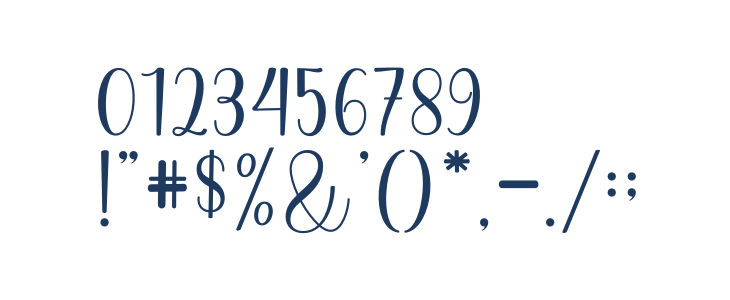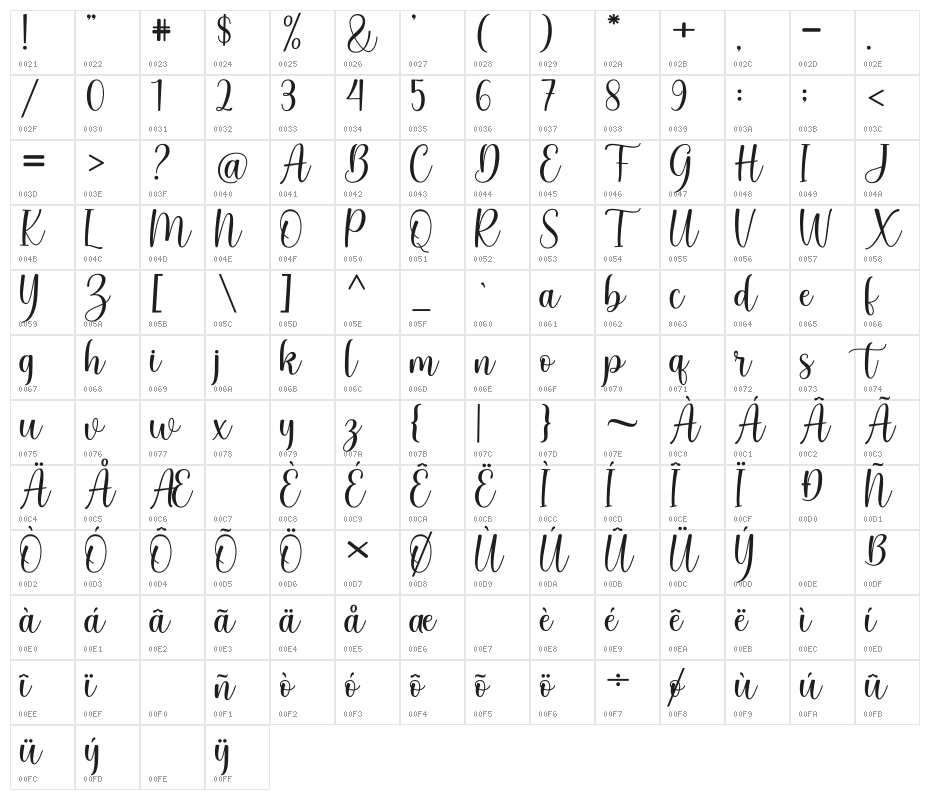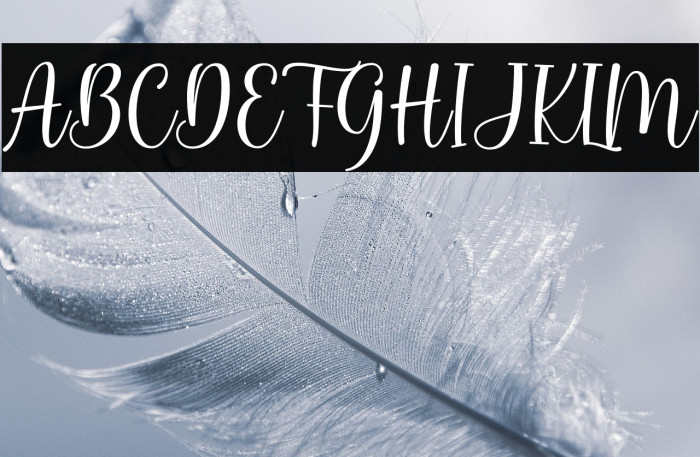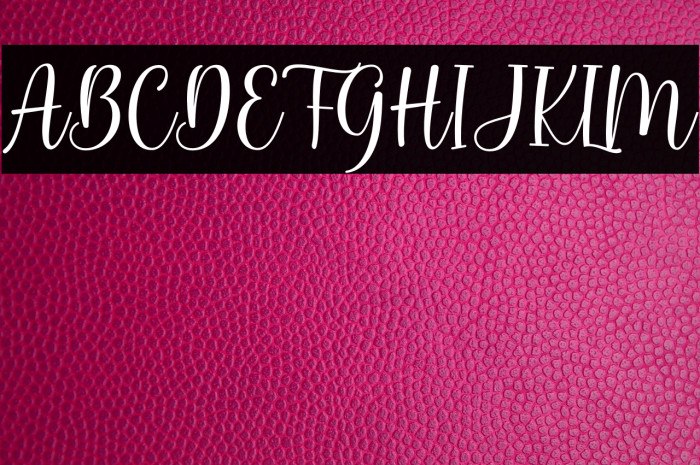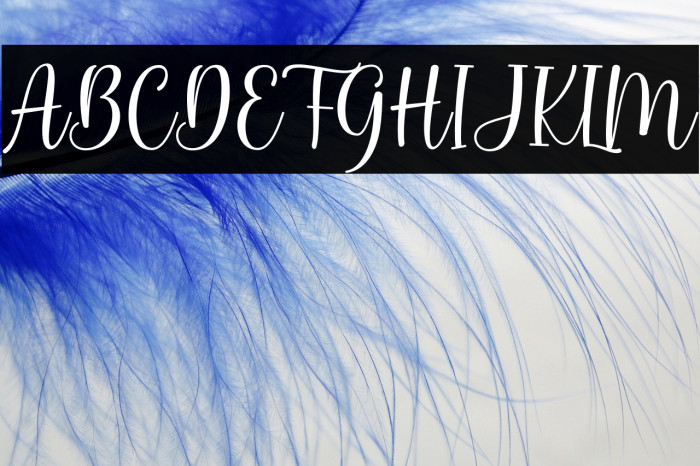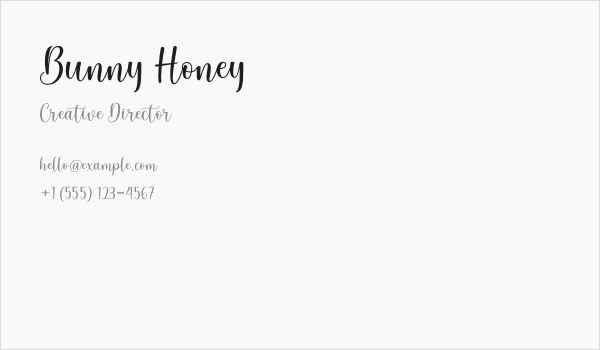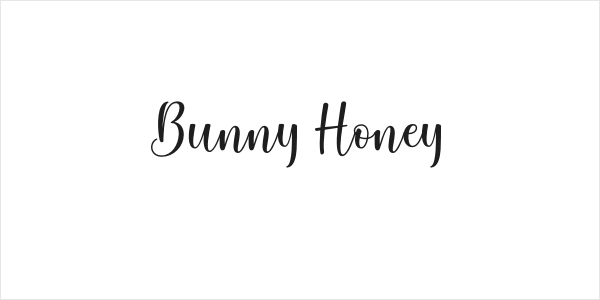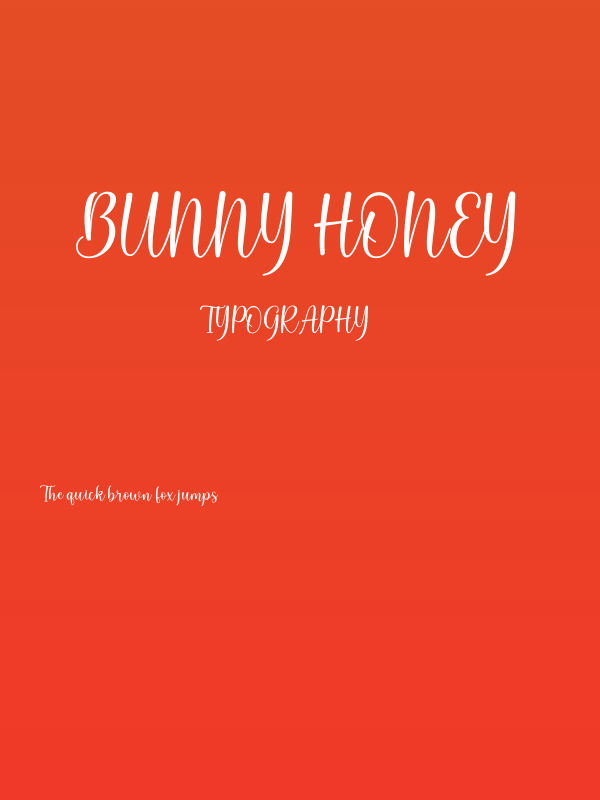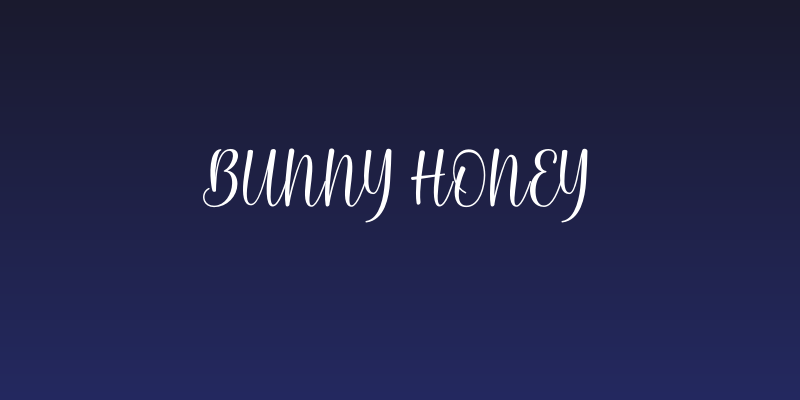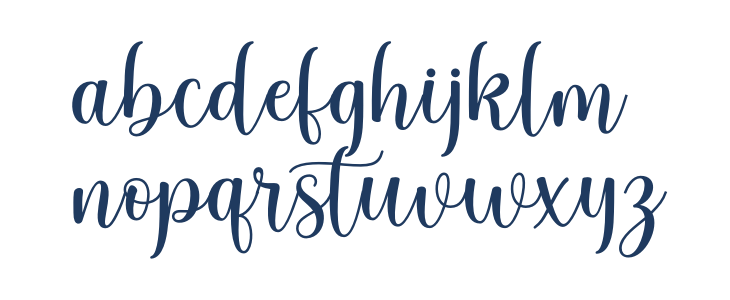
Bunny Honey Font
Bunny Honey Description
This font features a playful and elegant script style, characterized by its flowing, cursive letters. The uppercase letters are bold and slightly slanted, with a whimsical flair that adds a touch of sophistication. The lowercase letters maintain a consistent flow, with smooth curves and loops that enhance its readability. The numerals are distinct and clear, matching the overall aesthetic with a slight slant and rounded edges. Special characters are creatively designed, maintaining the playful yet elegant theme. This font is perfect for projects that require a personal touch, such as invitations, greeting cards, or branding materials.